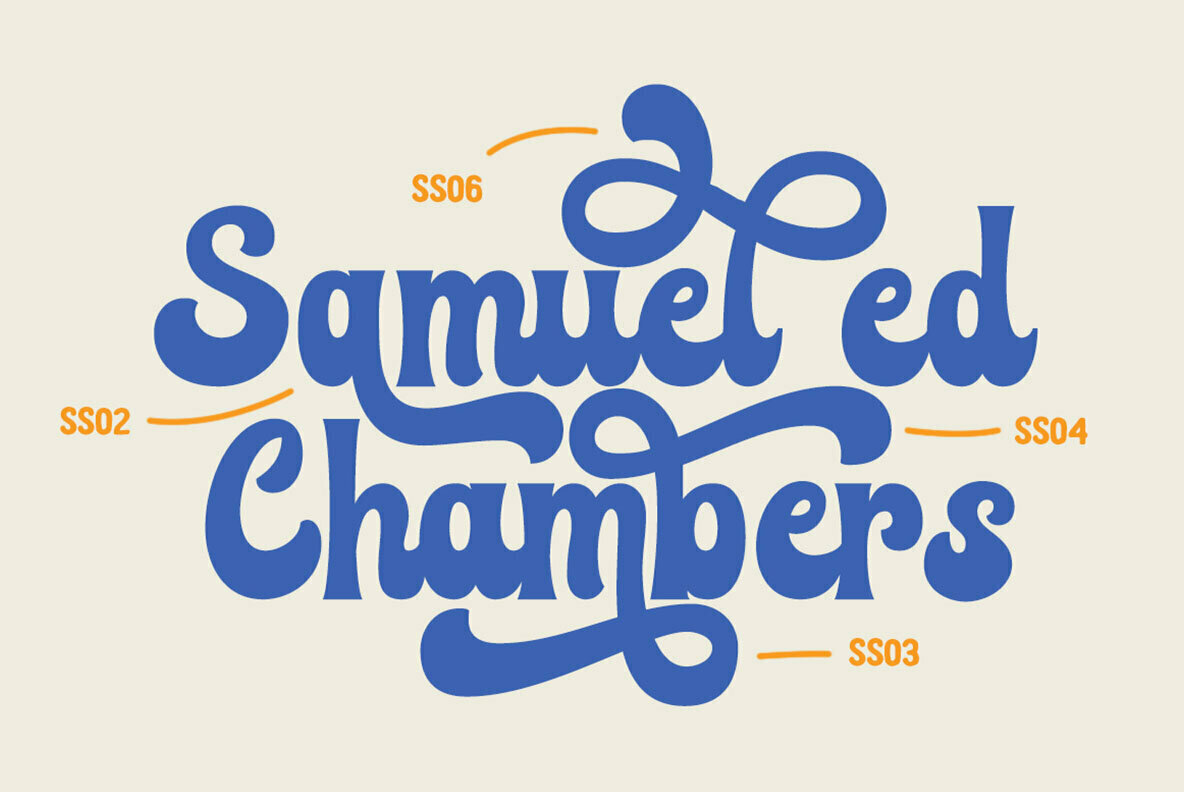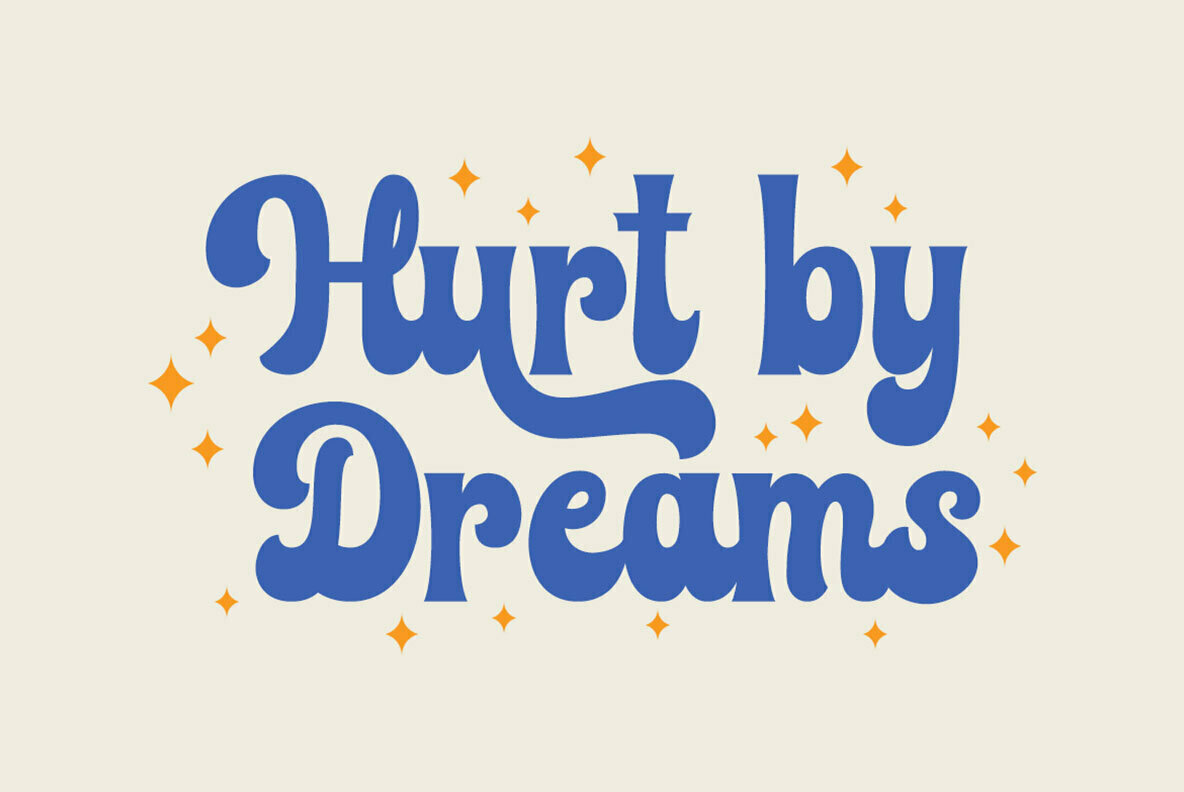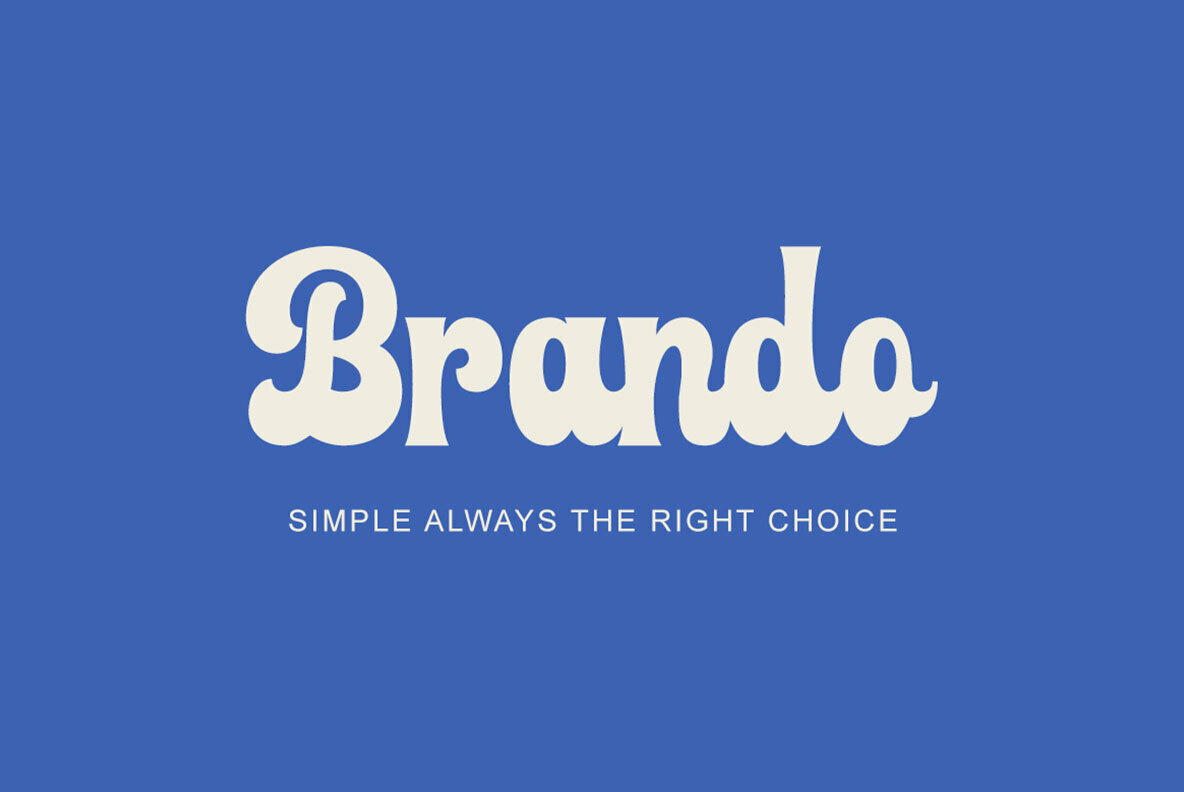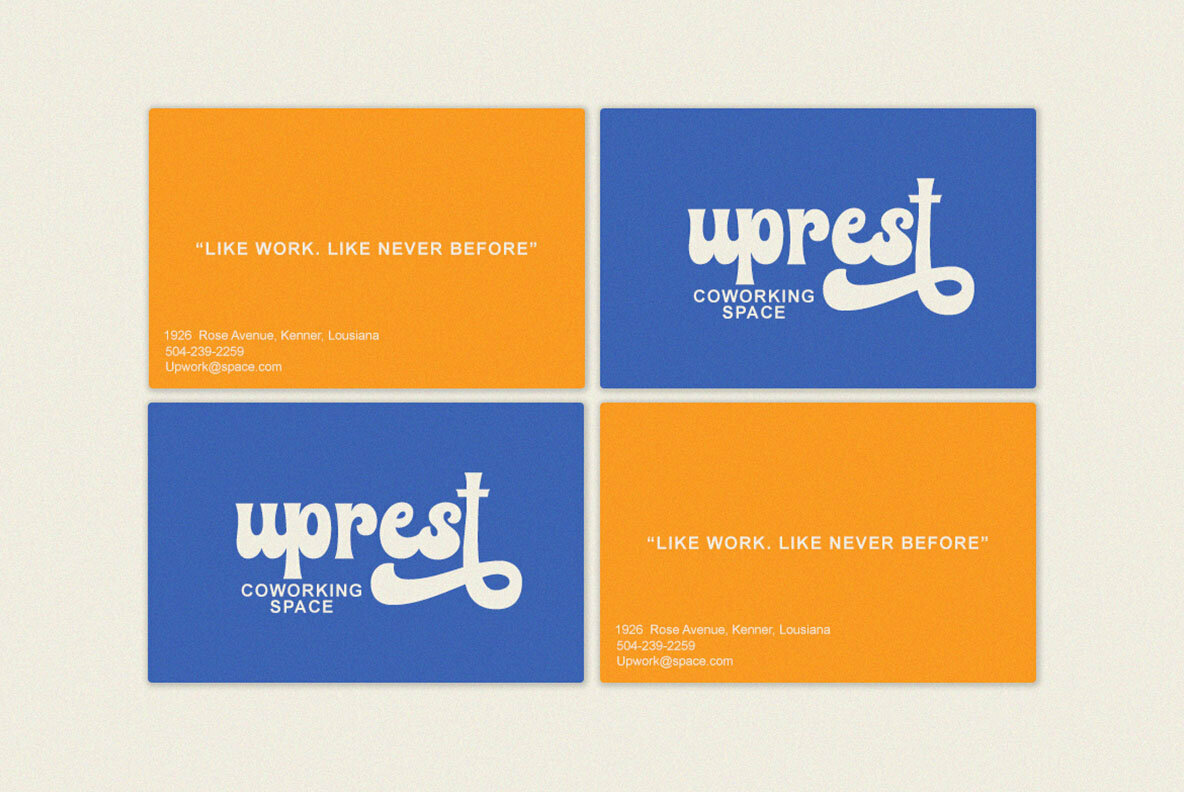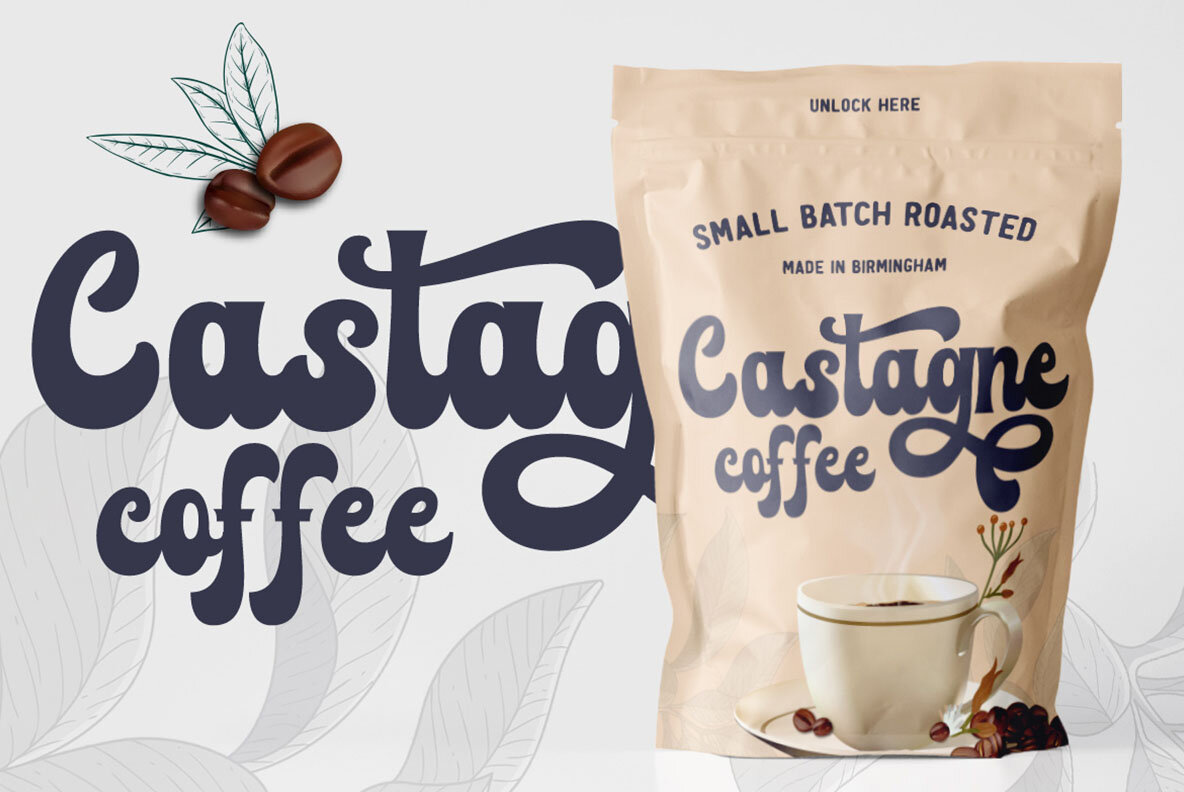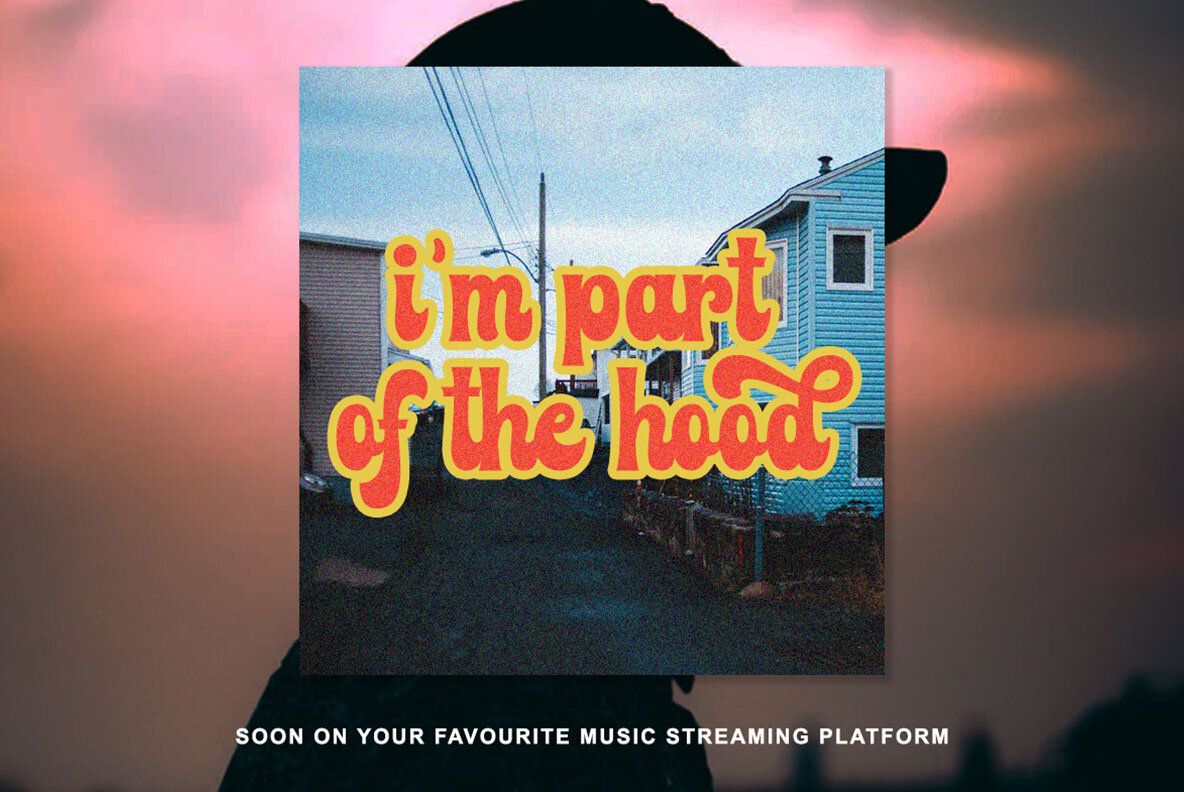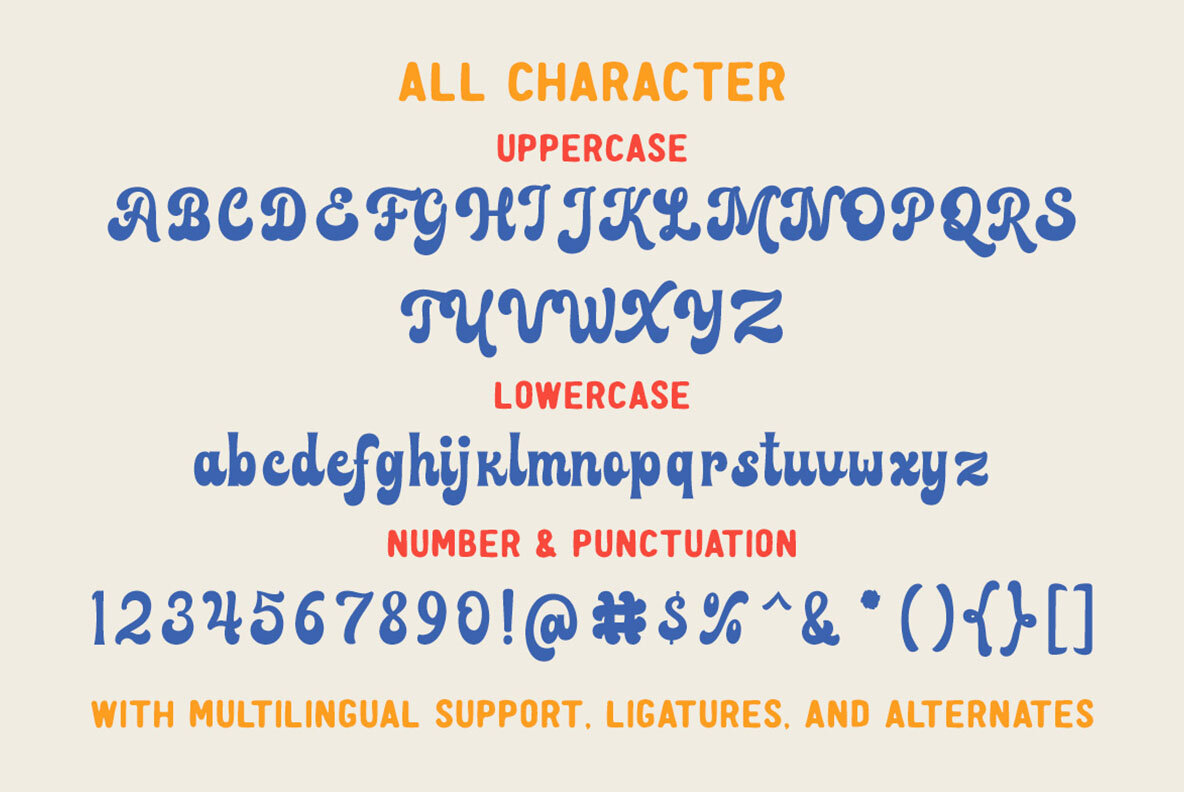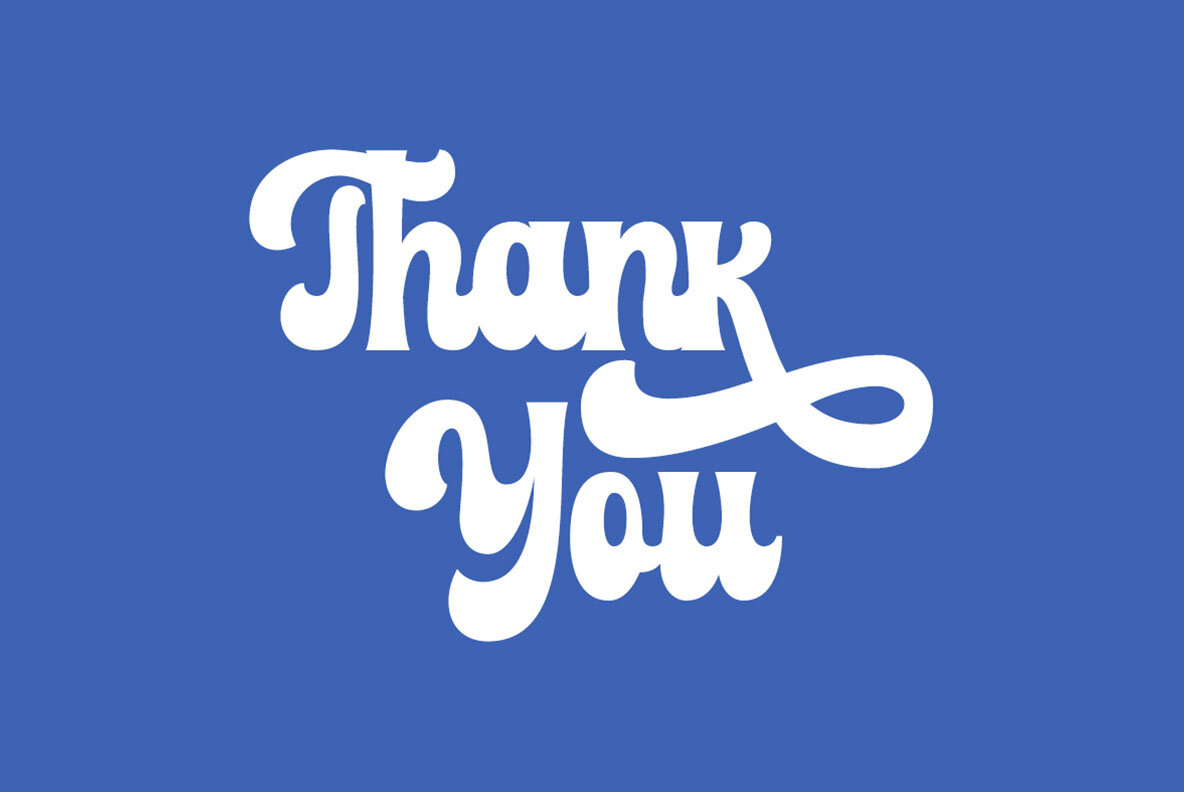
Farland Font
Farland Regular
Step into the realms of nostalgia with Farland, a bold script typeface embodying a vintage essence. This versatile font effortlessly complements logos, headlines, signage, packaging, and branding projects, lending them an air of timeless elegance.Farland: Bold Script Font with a Vintage Touch